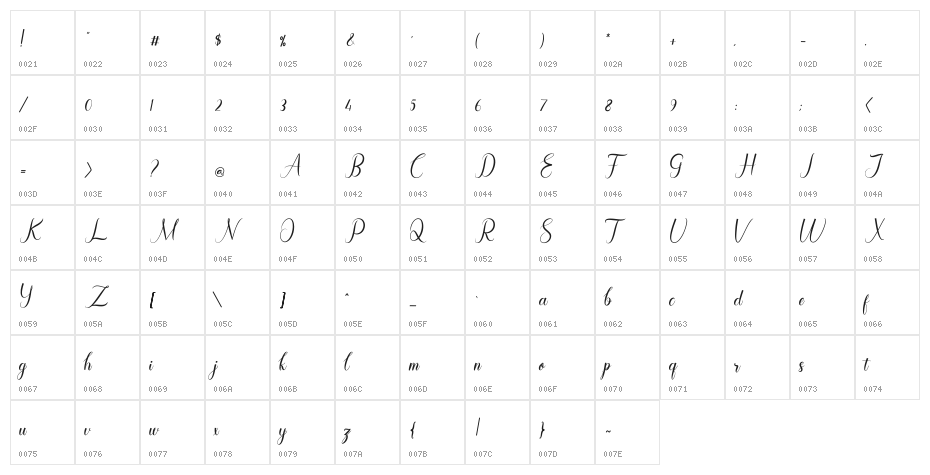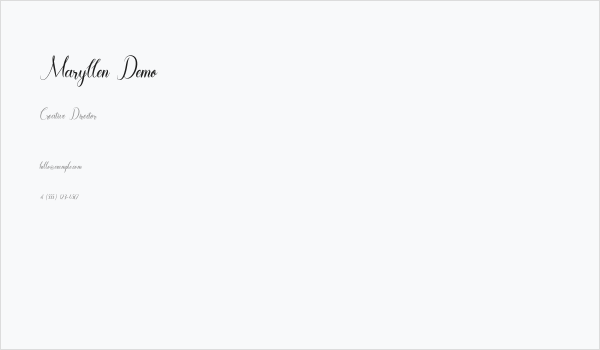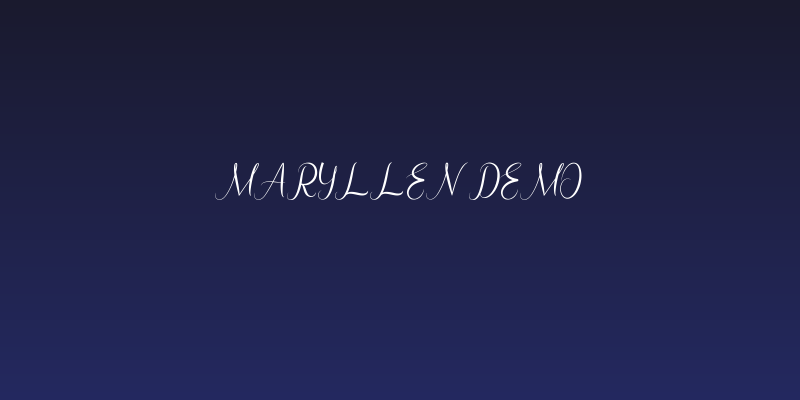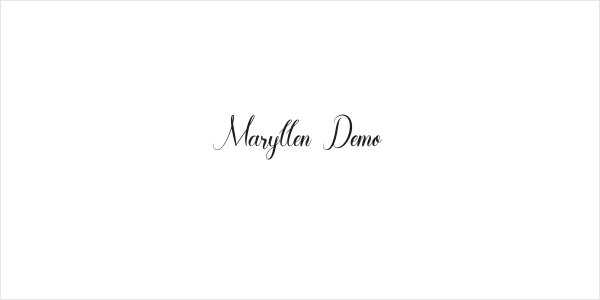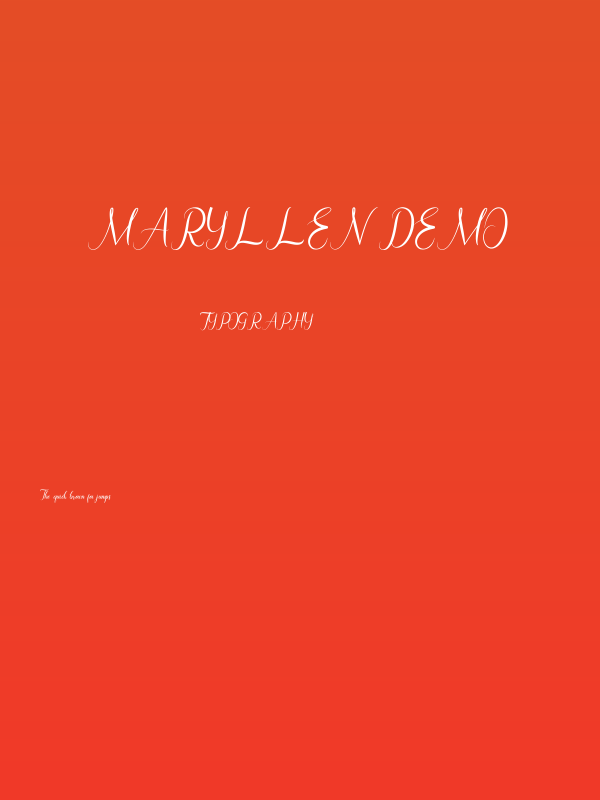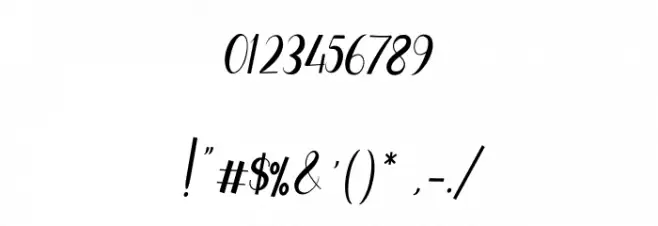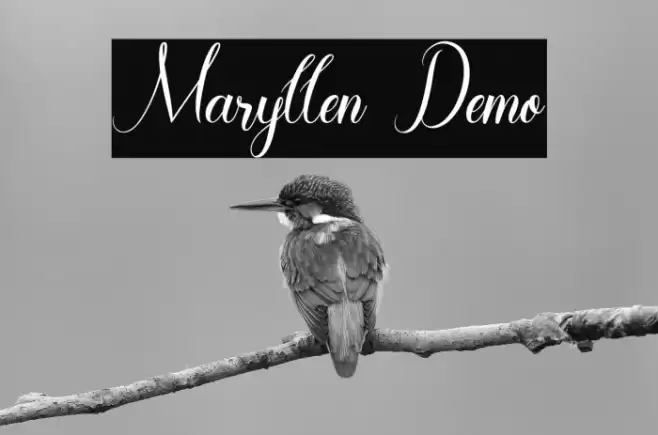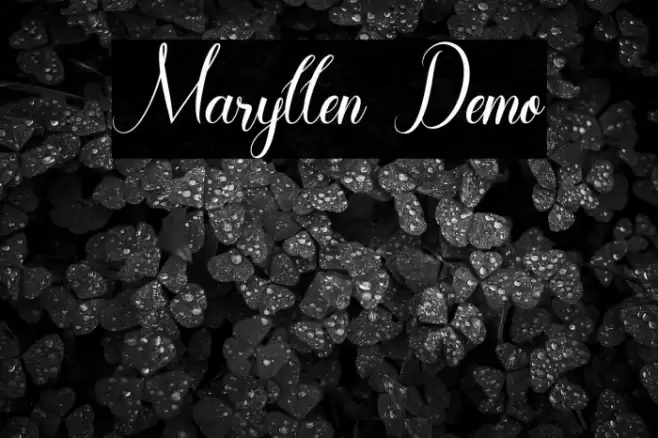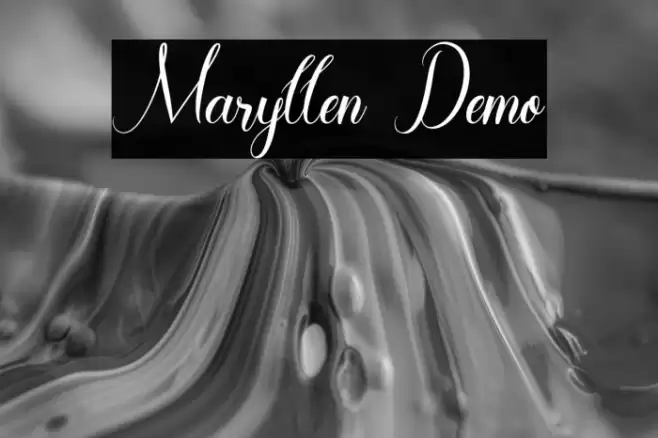
Maryllen Demo Font
This elegant script font features flowing, cursive letterforms that exude sophistication and grace. The uppercase letters are tall and slender, with sweeping curves and delicate flourishes that add a touch of luxury. The lowercase letters maintain a consistent style, offering a harmonious blend of loops and swashes that create a seamless flow. The numerals are styled to match the overall aesthetic, ensuring a cohesive look across all characters. Special characters are thoughtfully designed, maintaining the font's refined appearance. This font is perfect for projects that require a touch of elegance and class.
| Proposed Projects | Ideal for wedding invitations, luxury branding, elegant stationery, and high-end product packaging. |